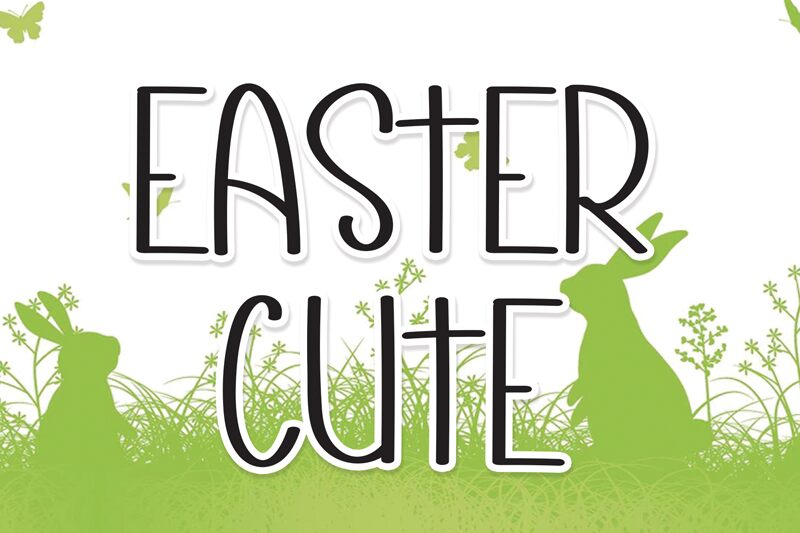
Easter Cute font by Andi Moz is a fun and expressive script typeface filled with personality. It brings a sense of whimsy and playfulness, perfect for creative and unconventional projects. This free font features decorative elements, making it an excellent choice for those looking to give their work a warm, friendly, and approachable feel.
Easter Cute is a versatile font suitable for various informal applications like greeting cards, children’s books, packaging designs, wedding invitations, posters, and more. The creative nature of this typeface makes it an ideal choice for personal and expressive projects.
This is a sweet and friendly handwritten display font. Cute and fun, this free font is ideal for writing wedding invitations, cards, or any other design that requires a playful touch!